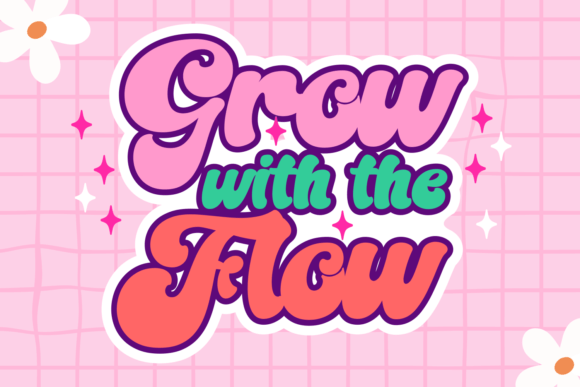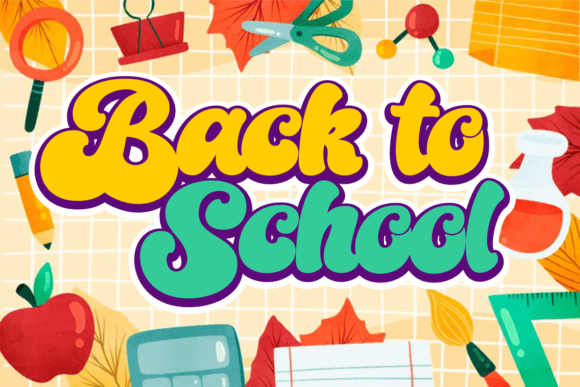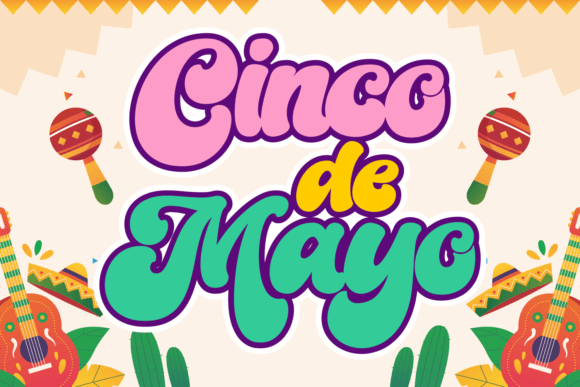
Introduction to Groovy Kids Font
Have you ever found yourself staring at a blank page, desperately seeking the perfect font to bring your creative project to life? It’s a moment we’ve all been in – the one where inspiration strikes, and you’re left wondering what’s missing to make it truly special. That’s where the Groovy Kids Font comes in – a delightful display font that’s sure to add a touch of whimsy to your designs.
As a valuable design resource, the Groovy Kids Font offers a high-quality solution for designers looking to elevate their work. Its transparent background makes it easy to integrate into any project, and its free download option means you can access it without breaking the bank. Whether you’re working on a commercial project or a personal passion project, this font is sure to be a game-changer.
Key Features of Groovy Kids Font
- Unique and playful design, perfect for creative projects and children’s educational materials
- High-quality font with transparent background, ideal for digital design and print materials
- Perfect for designing kids’ party invitations, educational materials, and other creative projects
- Unique characteristics include bold and colorful letters, making it an excellent choice for designers seeking a fun and playful font
Honest Review: Groovy Kids Font
I recently stumbled upon the Groovy Kids Font, and I must say it’s a great addition to any creative project. The free download was a pleasant surprise, and I was excited to see how it would perform.
Here are some things that work well: ✨ The font is incredibly versatile, making it perfect for a variety of design projects, from children’s books to educational materials. The high-quality design ensures that it looks great on any background, including transparent backgrounds.
- Perfect for creative projects targeting kids
- High-quality design that looks great on transparent backgrounds
- Very versatile, suitable for various design projects
However, there are a few limitations to keep in mind: ⚠️ The font might not be the best choice for projects that require a more sophisticated or mature tone. Additionally, the design may not be suitable for use in professional or formal settings.
Overall, I’m quite impressed with the Groovy Kids Font. It’s a great resource for designers who need a fun and playful font for their creative projects. Just be aware of the potential limitations, and you’ll be all set to create some amazing designs.
Tips for Getting the Most Out of Groovy Kids Font
For the best results, use the font in conjunction with other design elements that match its playful and creative vibe. Experiment with different font sizes, colors, and arrangements to create a unique and eye-catching design.
The Groovy Kids Font is perfect for a variety of creative projects, including birthday invitations, social media graphics, and educational materials. Its high-quality design and transparent background make it an ideal choice for designers who want to create professional-looking designs quickly and easily.